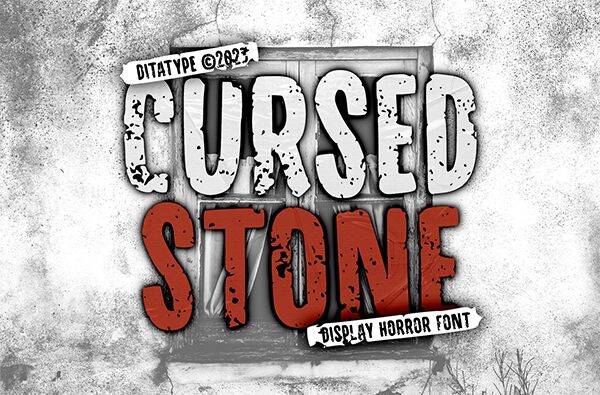
Cursed Stone font by Ditatype is a display font with an eroded style and condensed width. Its weathered texture and distressed appearance evoke mystery and antiquity, suggesting a gritty atmosphere. This display typeface embraces components that illustrate the passage of time, marks left to intentionally mimic the aging process that brings impressive results.
With its strikingly rugged aesthetic, it can be used for horror book covers, poster titles, dark web designs like blogs, games visuals such as those created for posters and covers (board or card), cartoon animations or series intros or credits, magic tricks typography effects etc.